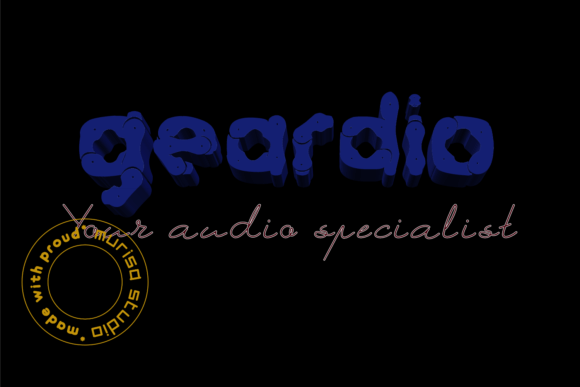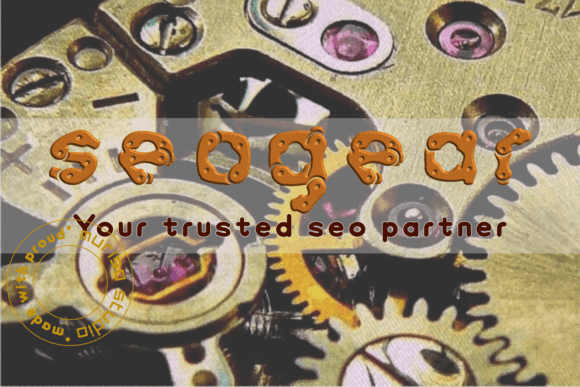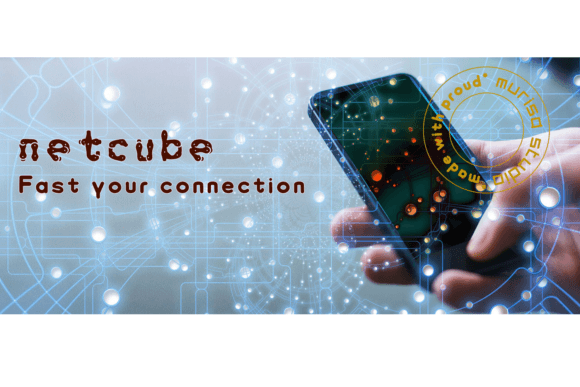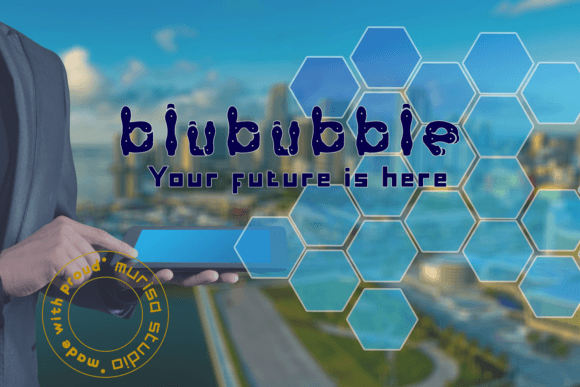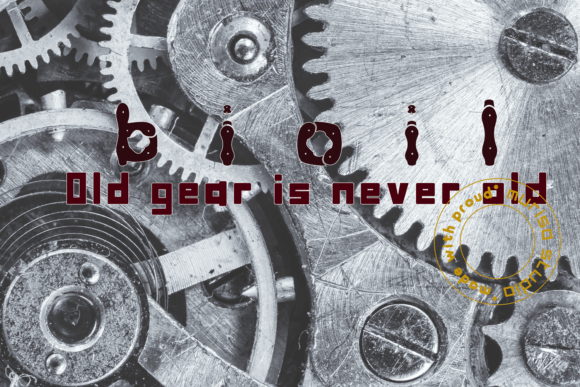
The Ultimate Guide to Boxana Font: Unlocking Endless Design Possibilities
I’ll never forget the time I was working on a project for a client who wanted a bold, eye-catching font to make their poster stand out. I spent hours scouring the internet for the perfect font, but nothing seemed quite right. That was until I stumbled upon Boxana Font. This cool and bold display font has been a game-changer for my designs, and I’m excited to share its endless possibilities with you.
An Honest Review of Boxana Font
So, what makes Boxana Font so special? Let’s dive into the good stuff and a few quirks I’ve discovered.
- ✅ Bold and eye-catching: Boxana Font is perfect for making a statement with your designs.
- ✅ Highly versatile: It can be used for a wide range of projects, from posters and flyers to logos and branding.
- ✅ Easy to read: Despite its bold nature, Boxana Font is surprisingly easy to read, even at smaller sizes.
- ✅ Unique character set: Boxana Font comes with a range of unique characters and glyphs to add extra flair to your designs.
A Few Quirks 🤔
- ⚠️ Limited use for body text: While Boxana Font is amazing for headlines and titles, it’s not the best choice for body text due to its bold nature.
- ⚠️ May not be suitable for all design styles: Boxana Font has a distinct personality that may not fit with every design style or aesthetic.
One of the most exciting features of Boxana Font is its OpenType features and glyphs. These allow you to add extra flair to your designs and make them truly unique.
The Backstory of Boxana Font
Legend has it that Boxana Font was created by a team of designers who wanted to create a bold, eye-catching font that would stand out in a crowded design landscape. Inspired by classic geometric fonts, they crafted Boxana Font with a unique character set and OpenType features.
| Font Name | Boxana Font |
| Author | murisa.studio |
| Q: What is Boxana Font best used for? | A: Boxana Font is perfect for posters, flyers, logos, and branding projects where a bold, eye-catching font is needed. |
| Q: Can I use Boxana Font for body text? | A: While Boxana Font is easy to read, it’s not the best choice for body text due to its bold nature. |